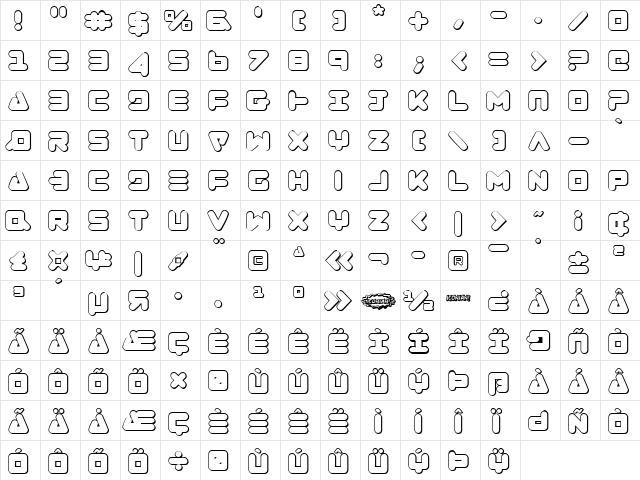
Zealot Outline Outline
Design Context for Zealot Outline Typeface
Zealot Outline is built around its visual character rather than neutral utility — its distinctive forms are designed to make an impression at display sizes.
Font Pairing: Pair with a clean neutral sans-serif for body copy to let Zealot Outline's character lead without overwhelming the composition.
Pro Tip: Treat Zealot Outline as the centrepiece of your typographic hierarchy. One strong heading set in a decorative face can carry an entire layout.